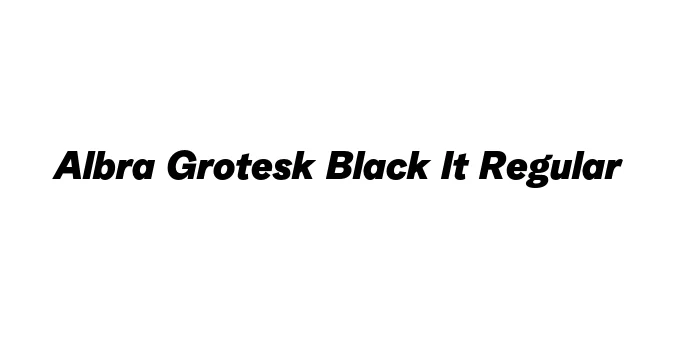
Albra Grotesk Black It Regular
Designed by BumbumType (Valerio Dell’Edera)
Albra Grotesk is a contemporary sans-serif typeface that serves as a modern interpretation of the classic grotesque genre. Designed by the BumbumType foundry, it successfully bridges the gap between high-fashion elegance and industrial functionality. The Black Italic weight is characterized by its powerful presence, featuring sharp terminals and a sophisticated slant that provides a sense of momentum and authority to any typographic layout.
The font is engineered for high-performance use in both print and digital environments. As part of the broader Albra family, Albra Grotesk Black It Regular is often selected for premium editorial projects, luxury branding, and large-scale advertising where a bold, premium aesthetic is required. Its distinctive character ensures that it remains legible even at heavy weights, making it a versatile tool for modern graphic designers looking for a high-contrast sans-serif.
Albra Grotesk Black It Regular Best Uses
Striking headlines and pull quotes in high-end magazines and journals.
Creating authoritative and premium visual identities for corporate or luxury brands.
Bold promotional graphics, large-scale posters, and billboards.
Impactful hero sections and typography-focused digital interfaces.